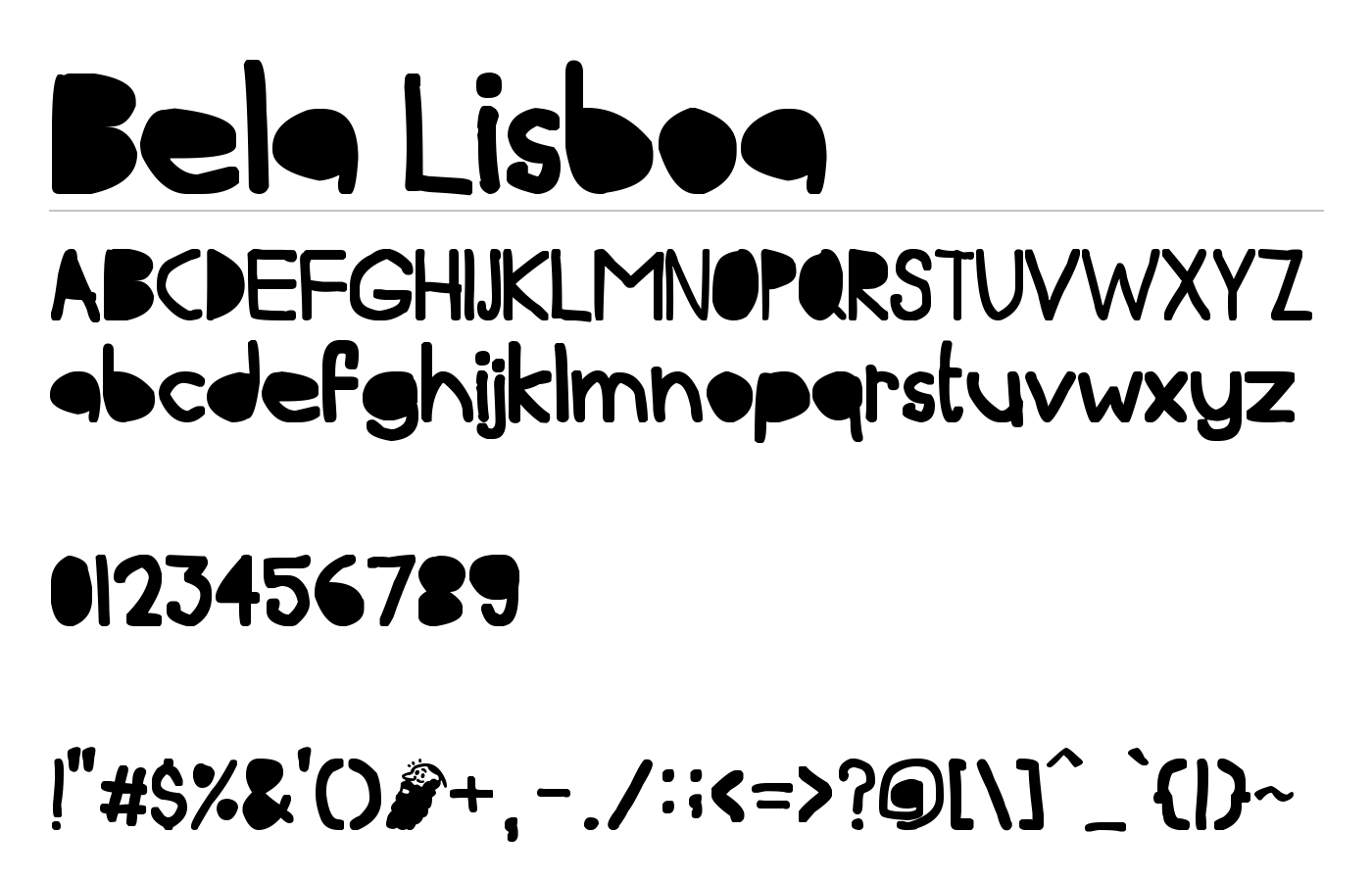
Bela Lisboa is a playful, hand-drawn sans serif font that combines bold, rounded forms with irregular, organic shapes, giving it a quirky and casual personality. Its uneven strokes and lively letterforms make it perfect for creative projects, children’s designs, or brands seeking a friendly and artistic touch. This distinctive font works well in headlines, logos, and packaging where a unique, approachable style is desired.
Bela Lisboa Font
About Bela Lisboa Font